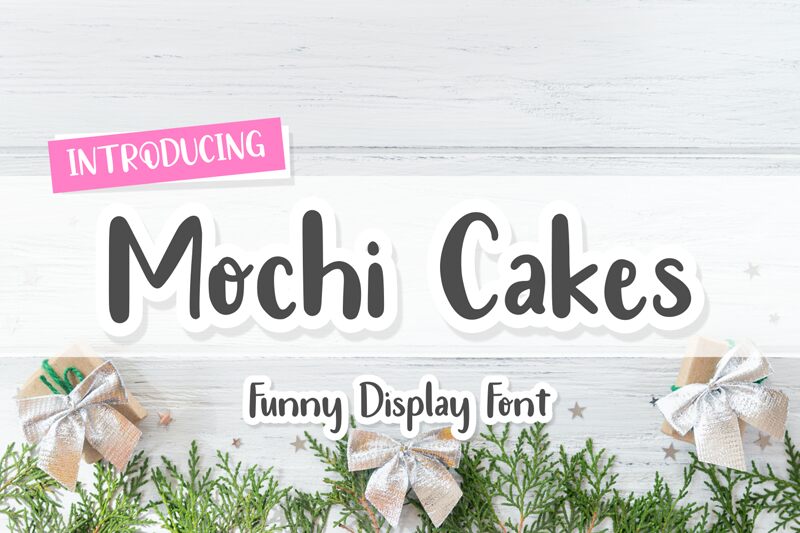
Mochi Cakes is a playful and dynamic brush font created by Makashi, brimming with energy and character. Its sweeping curves and bold strokes evoke the spontaneity of hand-painted signs, making it perfect for projects that require a touch of whimsy and personal flair. Each letter appears to dance across the page, giving designs a lively and organic feel.
This font shines in contexts that call for an approachable, friendly look such as children's books, casual branding, or creative advertising. Mochi Cakes promises to infuse your work with a distinctive charm that's as delightful and inviting as its namesake treat.